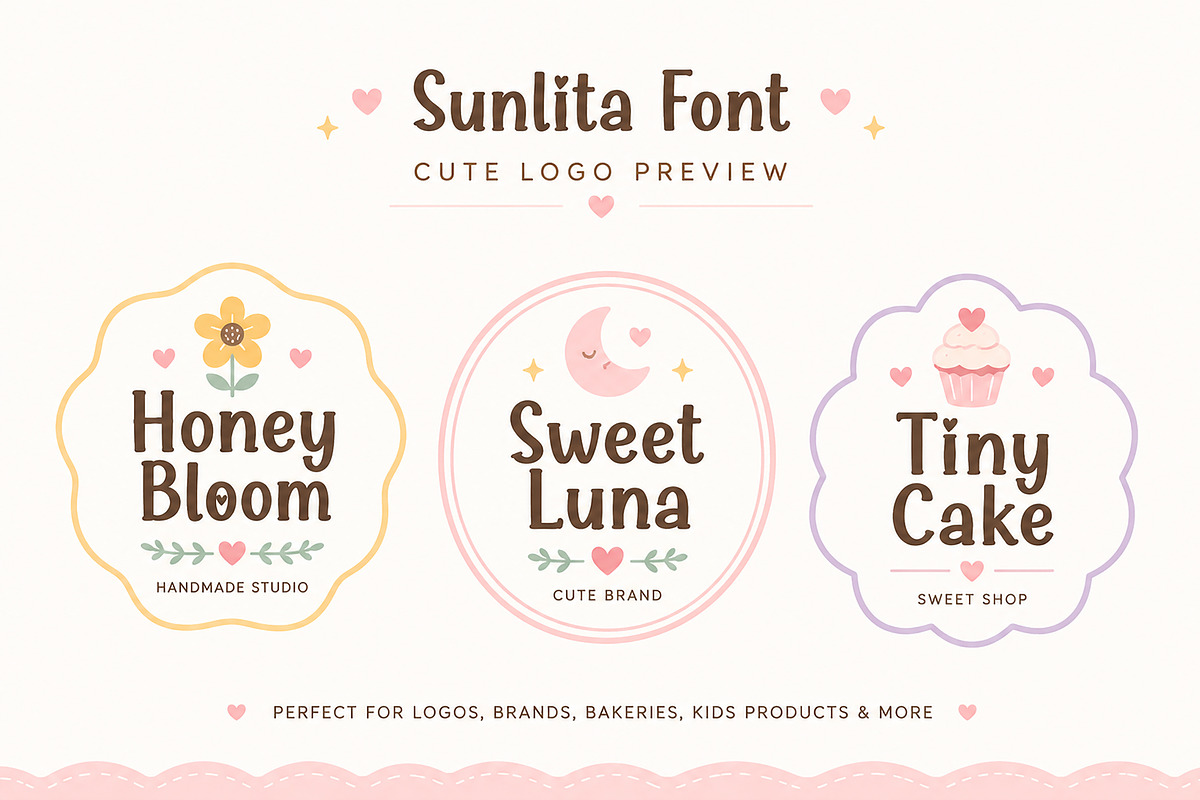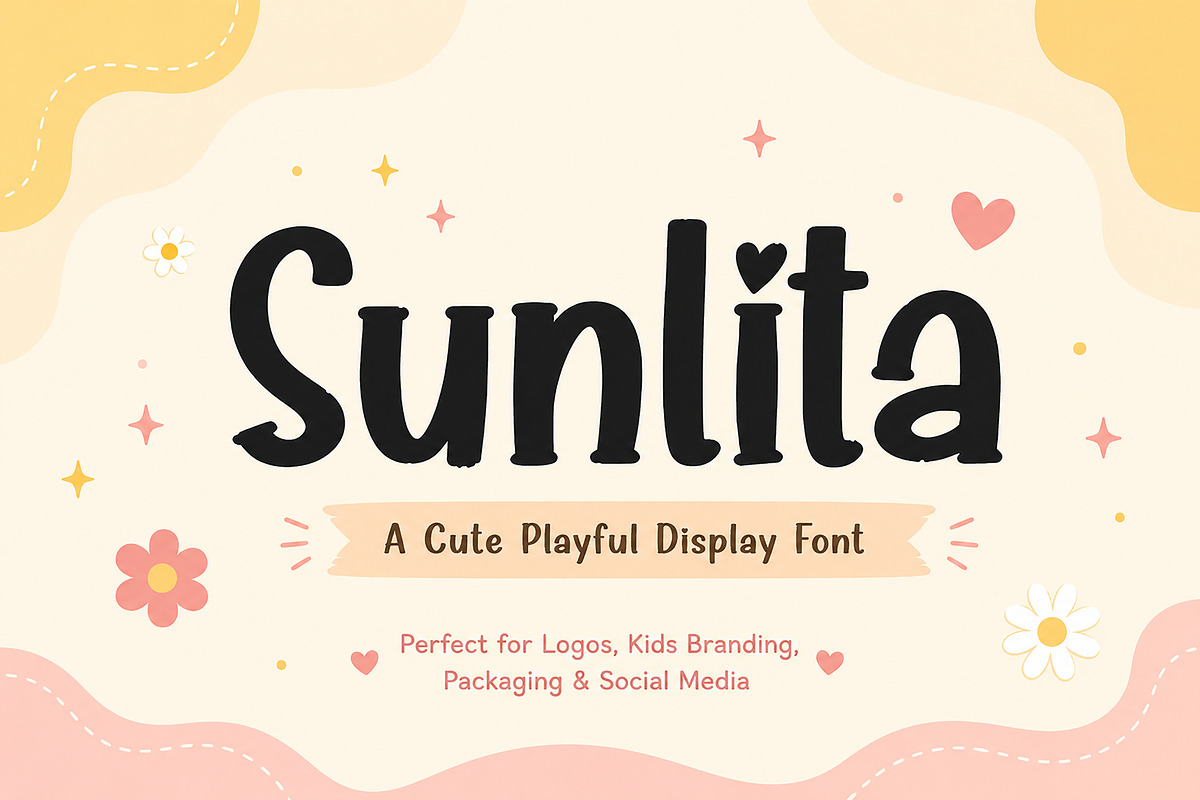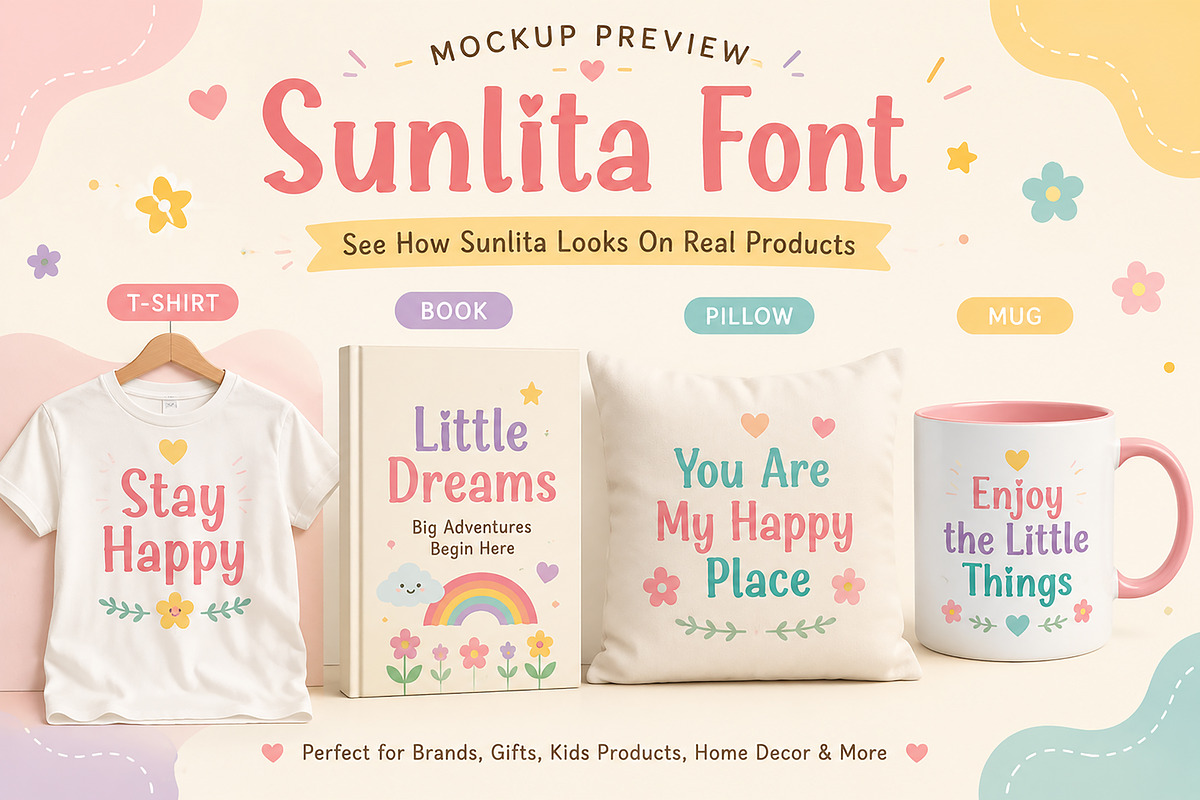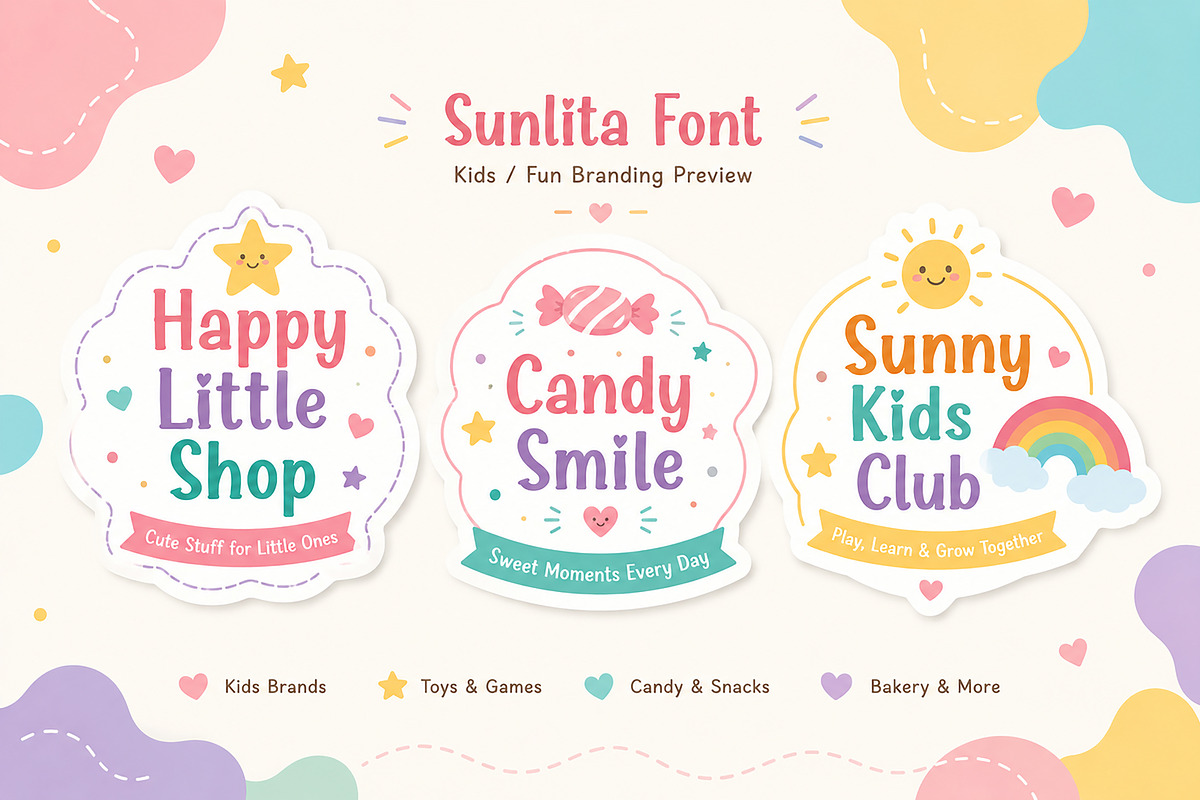
Sunlita
Sunlita – A Cute Playful Display Font
Sunlita is a charming and playful display font designed to bring warmth, sweetness, and personality to your creative projects. Featuring soft rounded shapes and adorable heart-inspired details, this font delivers a fun yet clean look that's perfect for modern branding and joyful designs.
Whether you're creating logos, product packaging, children's products, greeting cards, social media graphics, or handmade branding, Sunlita adds a delightful touch that instantly catches attention.
Its friendly appearance makes it ideal for businesses that want to express happiness, creativity, and a welcoming personality.
Cute Logo Design
Kids Branding
Toy Packaging
Candy & Bakery Branding
Baby Products
Greeting Cards
Invitations
Social Media Posts
Stickers
T-Shirts
Mugs
Pillows
Handmade Businesses
Cricut & Silhouette Projects
Printable Designs
Craft Projects
Quotes & Posters
Why You'll Love Sunlita
Cute & friendly personality
Perfect for playful branding
Clean and highly readable
Ideal for both print and digital projects
Great for kids, bakery, handmade, and lifestyle brands